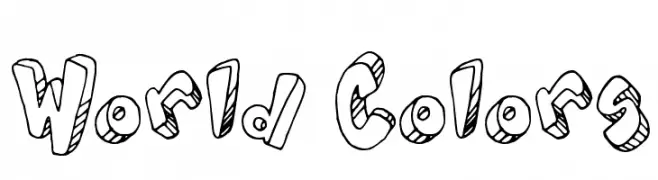
Pixel-art symbol font with diverse icons and a retro gaming feel.
A bold, geometric font with a modern and industrial style.
A bold, playful font with a unique shadow effect and rounded, irregular characters.
A playful, 3D hand-drawn font with a bold, cartoonish style.
A bold, geometric font with a modern and angular design.
A bold, geometric font with a modern and striking design.
A bold, italic font with a modern, geometric design and dynamic style.
A festive, snow-capped font with a bold, cartoonish style.
A playful collection of festive Christmas-themed doodles in black and white.
Whimsical Christmas-themed dingbat illustrations.